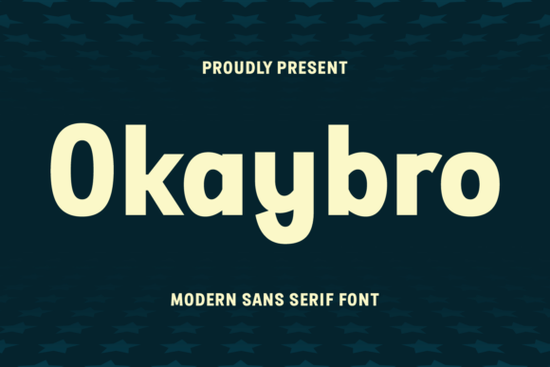
If you've been looking for a modern sans serif font that works across a wide range of projects without feeling generic, the Okaybro Font is worth a close look. It blends clean geometric lines with a warm, approachable personality making it a solid pick for everything from brand identities to apparel graphics. Whether you're a designer, crafter, or running a small print-on-demand shop, this typeface adapts to the job without drawing too much attention to itself.
What makes Okaybro Font different from other sans serifs?
Most modern sans serif fonts fall into one of two camps: they're either very rigid and corporate, or they lean so far into trendiness that they feel dated within a year. Okaybro sits somewhere in the middle. Its letterforms are balanced and structured enough for professional use think business cards, presentations, and magazine layouts but they carry just enough personality to feel inviting in casual or seasonal designs.
That versatility matters if you work across multiple project types. Instead of switching between a stiff display font for client work and a playful script for personal crafts, you can reach for one typeface and adjust how it feels through color, sizing, and layout.
What types of projects does it work best for?
Here's a practical breakdown of where Okaybro tends to perform well:
- Logo and brand design Its clean structure keeps logos looking professional while still feeling approachable.
- T-shirts and custom apparel The slightly expressive character works nicely for quote tees and casual clothing lines.
- Posters, banners, and signage It stays readable at larger sizes, which is important for bold display text.
- Product labels and packaging The balanced spacing keeps small text legible on packaging mockups.
- Social media graphics and quotes Works well for lifestyle content, seasonal promotions, and everyday posts.
- Presentations and editorial layouts Titles and subheadings look polished without feeling cold.
If you create Halloween designs, summer sale graphics, or holiday-themed content, the font's warm tone pairs well with seasonal color palettes and illustrations. It doesn't scream "theme font," which means it stays useful year-round.
Is it easy to read at different sizes?
Yes and this is one of its stronger points. Some trendy display fonts sacrifice readability for style, especially at smaller sizes. Okaybro Font keeps its letter spacing and proportions consistent whether you're setting a 72-point headline or a 12-point product description. That makes it practical for real-world use, not just mockups.
For print-on-demand sellers, this is especially helpful. You want your designs to look sharp on a phone screen and on a printed t-shirt or mug. A font that reads clearly across mediums saves you from redesigning the same layout twice.
How does it compare to similar fonts?
If you like the modern sans serif style but want to explore alternatives, a couple of options stand out:
- Mismatched Socks This one leans more playful and quirky, which works well for kids' designs, party invitations, and lighthearted branding.
- Oliffo A cleaner, more minimalist option if your projects call for a stricter geometric feel.
Each of these has its own personality. Mismatched Socks Font and Oliffo Font are great in their own right, but if you need a single typeface that covers both professional and casual ground, Okaybro handles that range more naturally.
Who is this font a good fit for?
Based on how it's designed, Okaybro works especially well for:
- Small business owners building a brand identity on a budget
- Print-on-demand sellers who need fonts that look good on products
- Crafters making quote graphics, greeting cards, or seasonal projects
- Designers working on editorial layouts, magazines, or pitch decks
- Anyone who wants a single versatile sans serif instead of managing a large font library
It won't replace a full type system for large-scale branding projects, but for most everyday design needs, it covers a lot of ground.
- Pair it wisely Okaybro works well on its own, but if you need a secondary font for body text, try a simple serif or a lighter weight sans serif to create contrast.
For designers and creators who need one reliable modern sans serif that handles both polished and personal projects, Okaybro is a practical addition to your toolkit. Start by testing it on your next project a social media post, a t-shirt mockup, or a client logo and see how it fits your workflow.